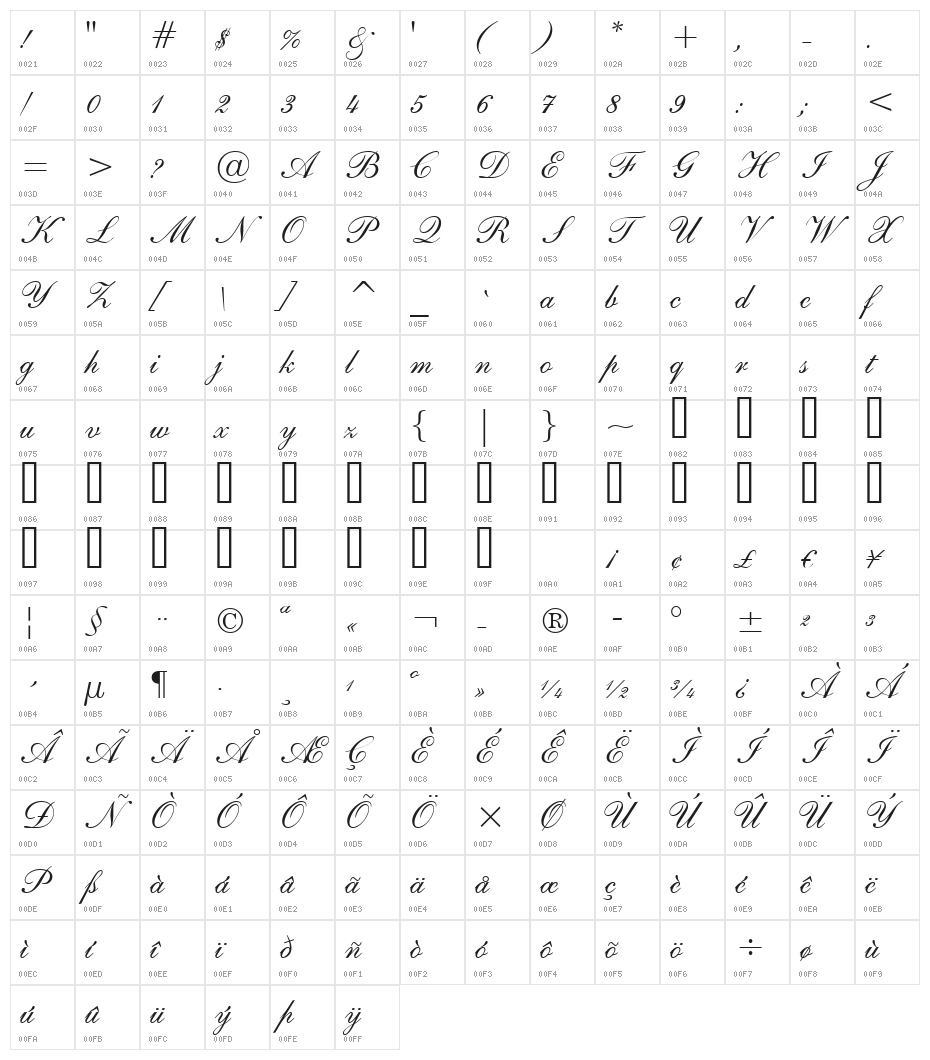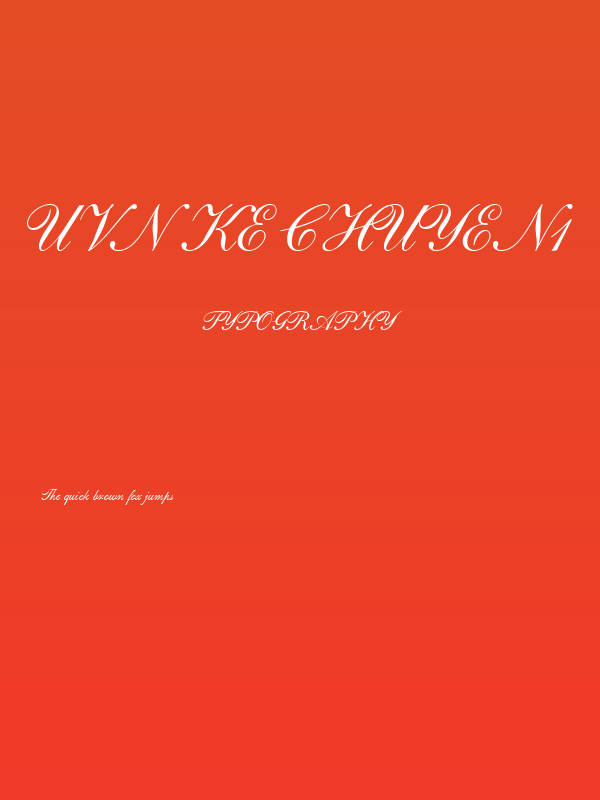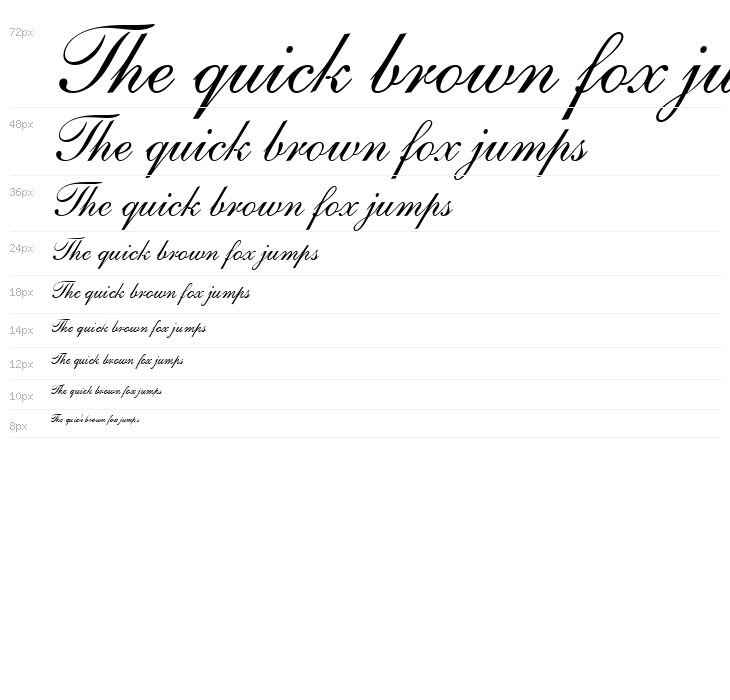
UVN Ke Chuyen1 Font
UVN Ke Chuyen1 Description
This elegant script font features flowing, cursive letterforms with a classic and sophisticated appearance. The uppercase letters are ornate, with sweeping curves and flourishes that give a sense of movement and grace. The lowercase letters maintain a consistent style, with smooth connections between characters, enhancing readability while retaining a decorative flair. The numerals are styled to match the overall aesthetic, with slight variations in stroke thickness that add to the font's charm. Special characters are thoughtfully designed to complement the letterforms, making this font versatile for various uses.
Overall StyleClassic
Use CaseLogos, Invitations, Decorative text
Proposed ProjectsIdeal for wedding invitations, elegant branding, greeting cards, and high-end product packaging.